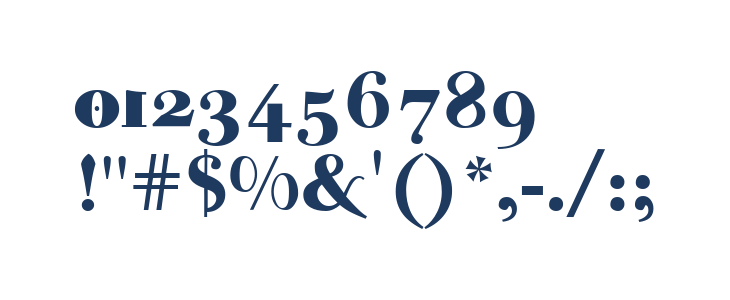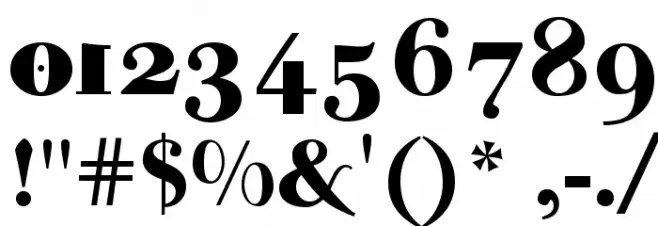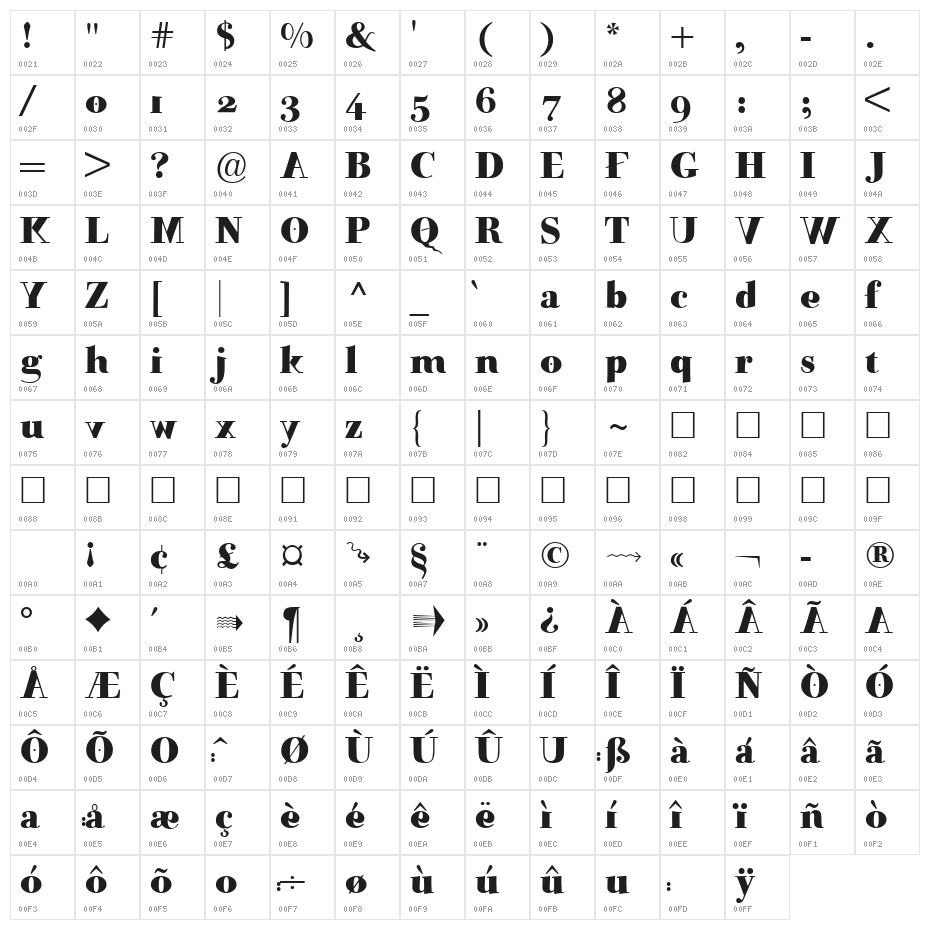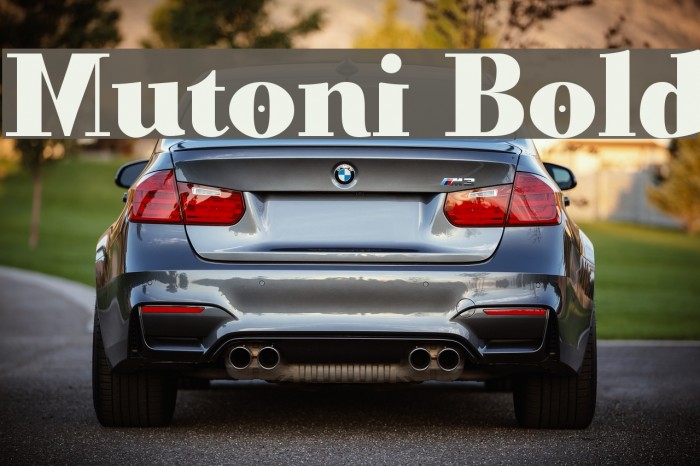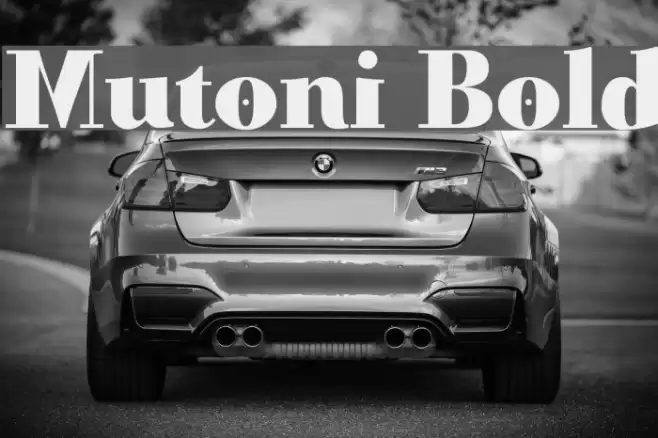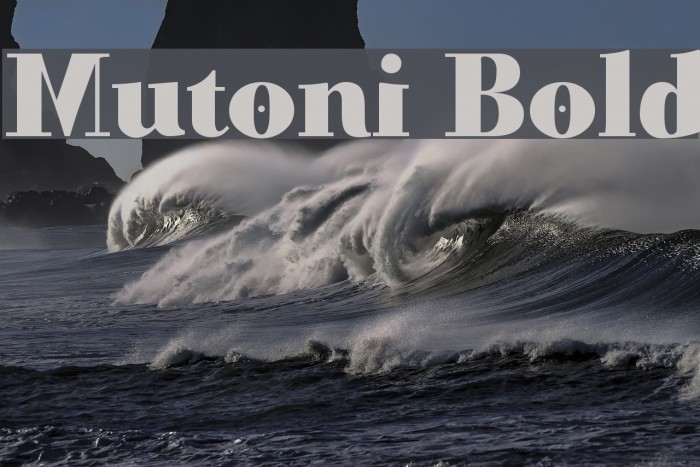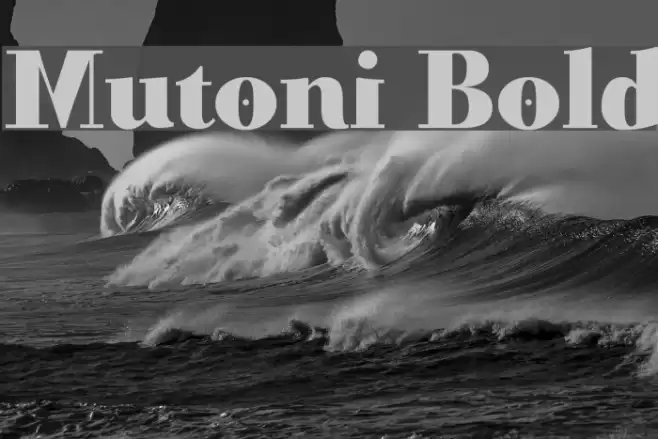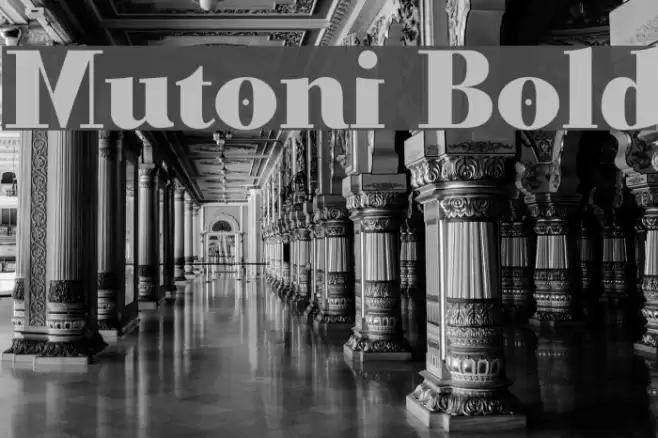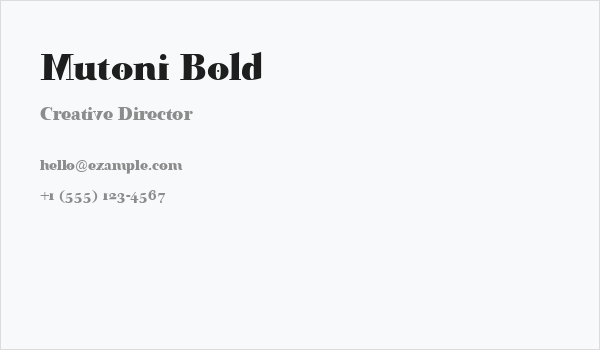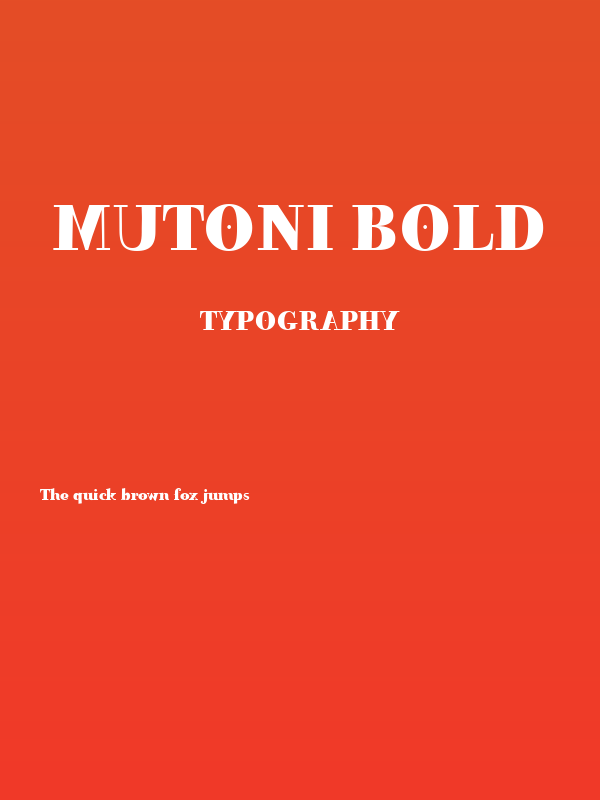
Mutoni Bold Font
Mutoni Bold Description
This font features a bold and dynamic style with strong, thick strokes that convey a sense of power and confidence. The uppercase letters are particularly striking, with sharp serifs and a commanding presence. The lowercase letters maintain this boldness while offering a slightly softer, more rounded appearance. The numerals are equally robust, ensuring clarity and impact. Special characters are designed with the same boldness, making them stand out effectively. Overall, this font combines traditional serif elements with a modern twist, making it versatile for various design needs.